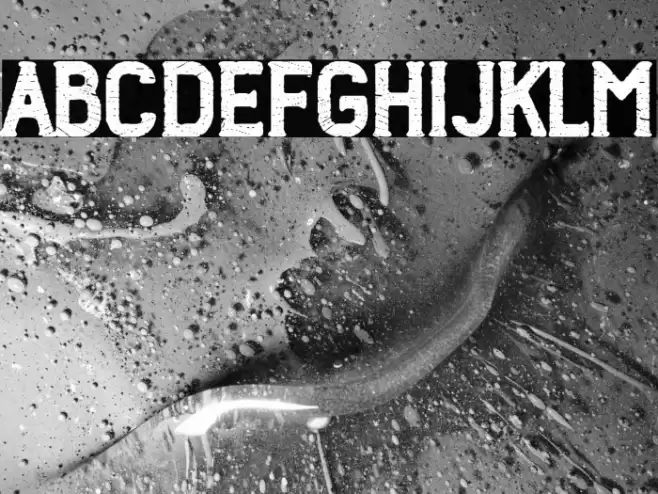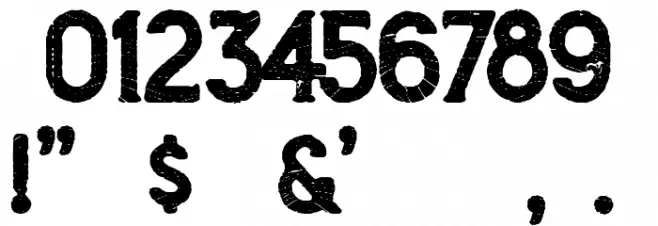
Wood Works 1974 Font
Wood Works 1974 Description
This font features a bold, textured appearance reminiscent of vintage woodblock printing. The characters are robust and slightly distressed, giving them a handcrafted, rustic feel. The uppercase letters are uniform in height, while the numbers and special characters maintain the same bold, textured style. The font's unique texture adds depth and character, making it ideal for projects that require a touch of nostalgia or a handcrafted aesthetic. Its boldness ensures readability, while the distressed texture adds visual interest.
A bold, textured font with a vintage, handcrafted feel from Uncategorized fonts.
- Font: Wood Works 1974
- Proposed Projects: Ideal for vintage posters, rustic branding, packaging design, and any project requiring a handcrafted aesthetic.
- Overall Style: Vintage